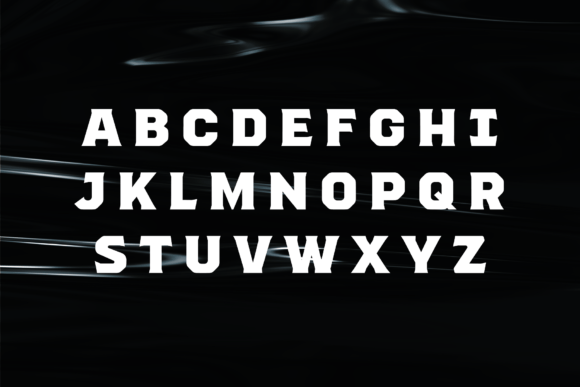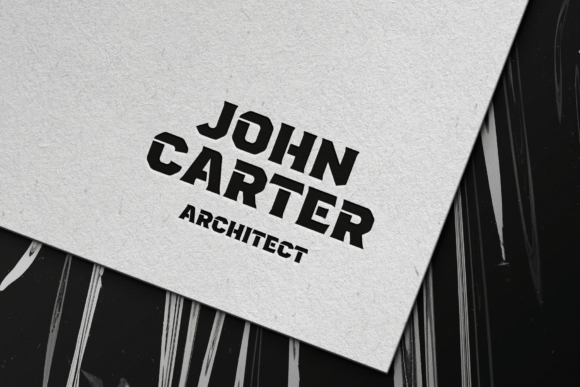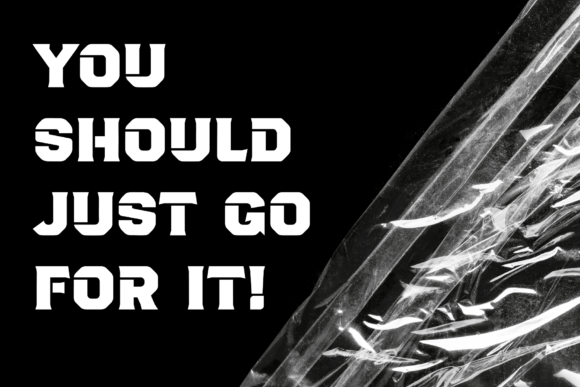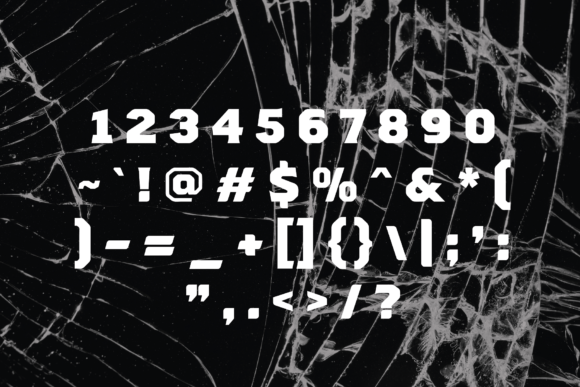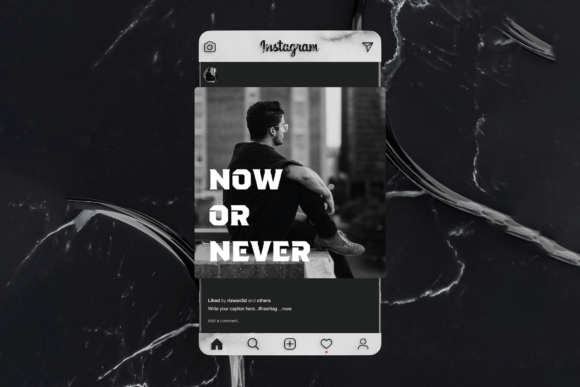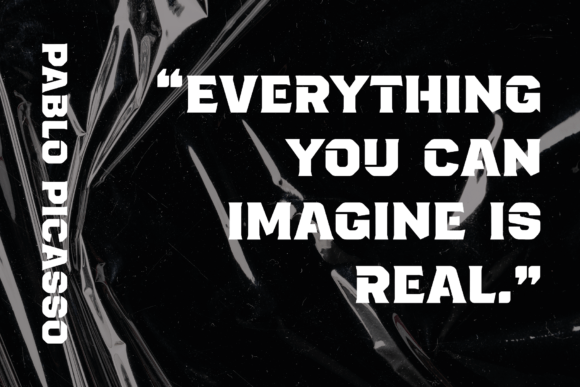
The Power of Bold: Unleashing the Potential of Dozer Font
I still remember the design project that led me to discover Dozer Font. I was working on a poster for a construction company’s annual event, and I needed a font that could convey strength, reliability, and a sense of ruggedness. After hours of searching, I stumbled upon Dozer Font, and it was love at first sight! With its thick, blocky letters and strong, masculine lines, this typeface instantly commanded attention and exuded confidence. In this article, I’ll share my experience with Dozer Font, its features, and how to make the most of it in your designs.
An Honest Review of Dozer Font
What I Love About Dozer Font
- ✨ Instant Impact: Dozer Font makes a bold statement, perfect for projects that require attention-grabbing typography.
- ✅ Versatility: This font works well for posters, logos, branding materials, and even digital media.
- 💯 Legibility: Despite its bold nature, Dozer Font remains surprisingly legible, even at smaller sizes.
While Dozer Font is an excellent choice for many projects, there are a few things to keep in mind:
- 🤔 Limited flexibility: Due to its bold and blocky design, Dozer Font may not be the best choice for projects that require a more delicate or elegant feel.
- ⚠️ Overuse: Using Dozer Font excessively can lead to visual fatigue, so be mindful of its usage and balance it with other design elements.
The Backstory of Dozer Font
According to its designer, Dozer Font was inspired by the rugged, industrial landscape of construction sites. The goal was to create a font that could convey strength, power, and confidence, while also being legible and versatile. The design process involved experimenting with different letterforms and shapes to create a unique, bold style that would stand out in any design.
| Font Name | Dozer Font |
| Author | HipFonts |
Q: What type of projects is Dozer Font best suited for?
A: Dozer Font is perfect for projects that require a bold, assertive style, such as posters, logos, branding materials, and construction-related designs.
Q: Is Dozer Font available in different weights or styles?
A: Currently, Dozer Font is available in a single weight, but its bold design makes it suitable for a variety of applications.
Q: Can I use Dozer Font for digital media, such as social media graphics or video titles?
A: Absolutely! Dozer Font works well for digital media, and its bold design ensures it will stand out on various screens and devices.